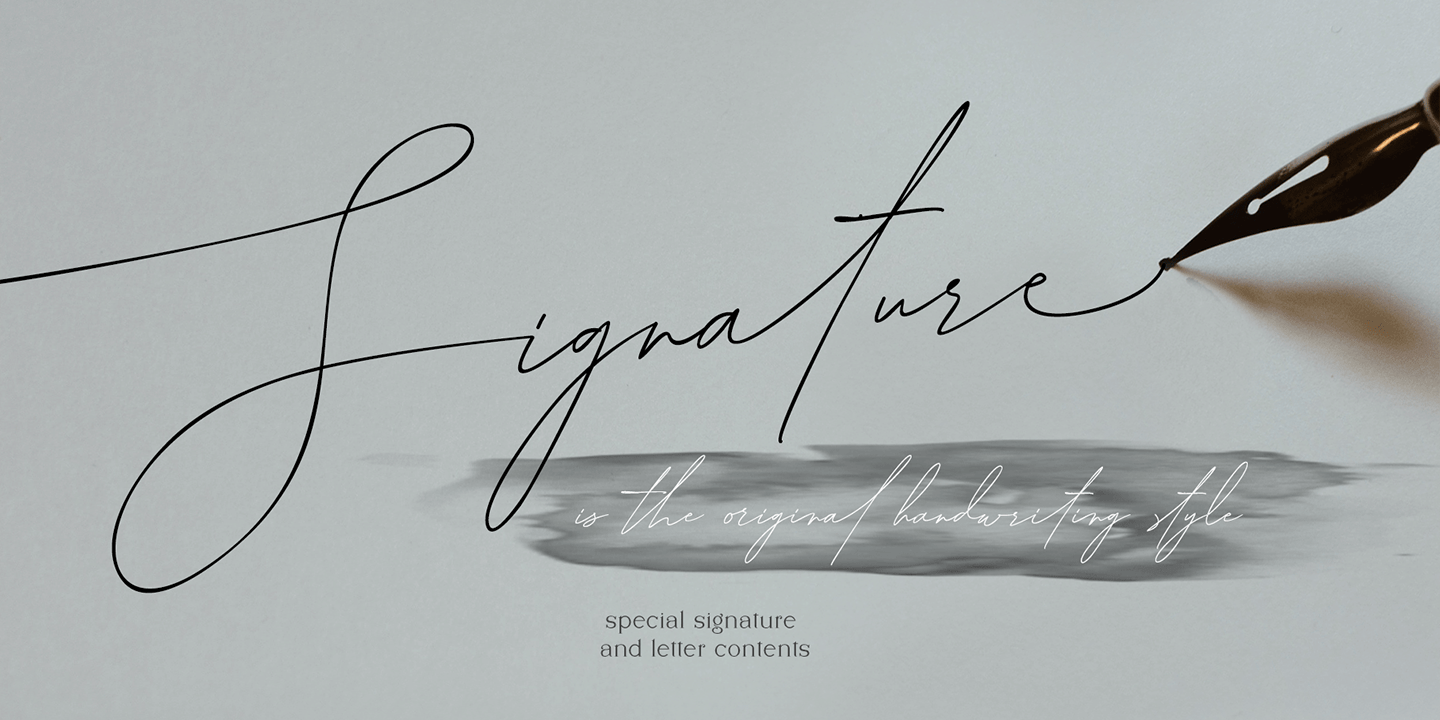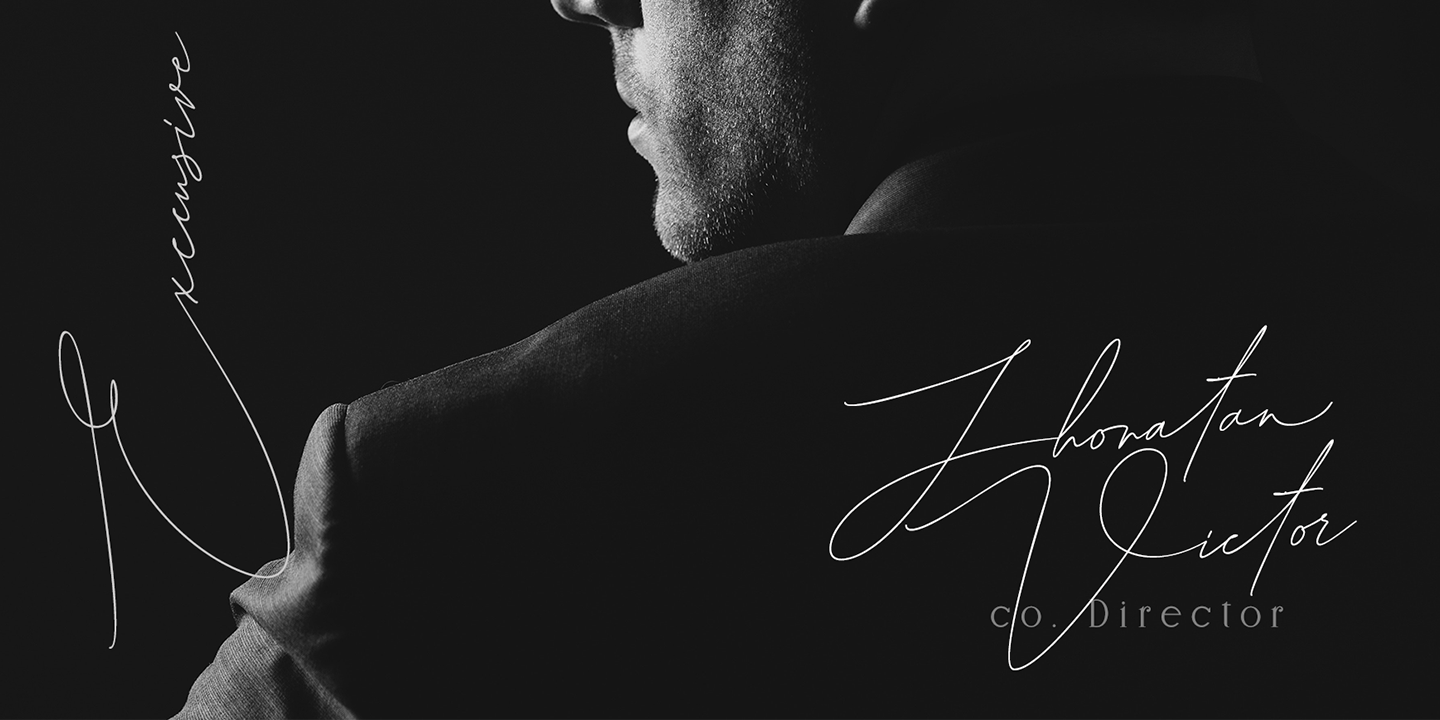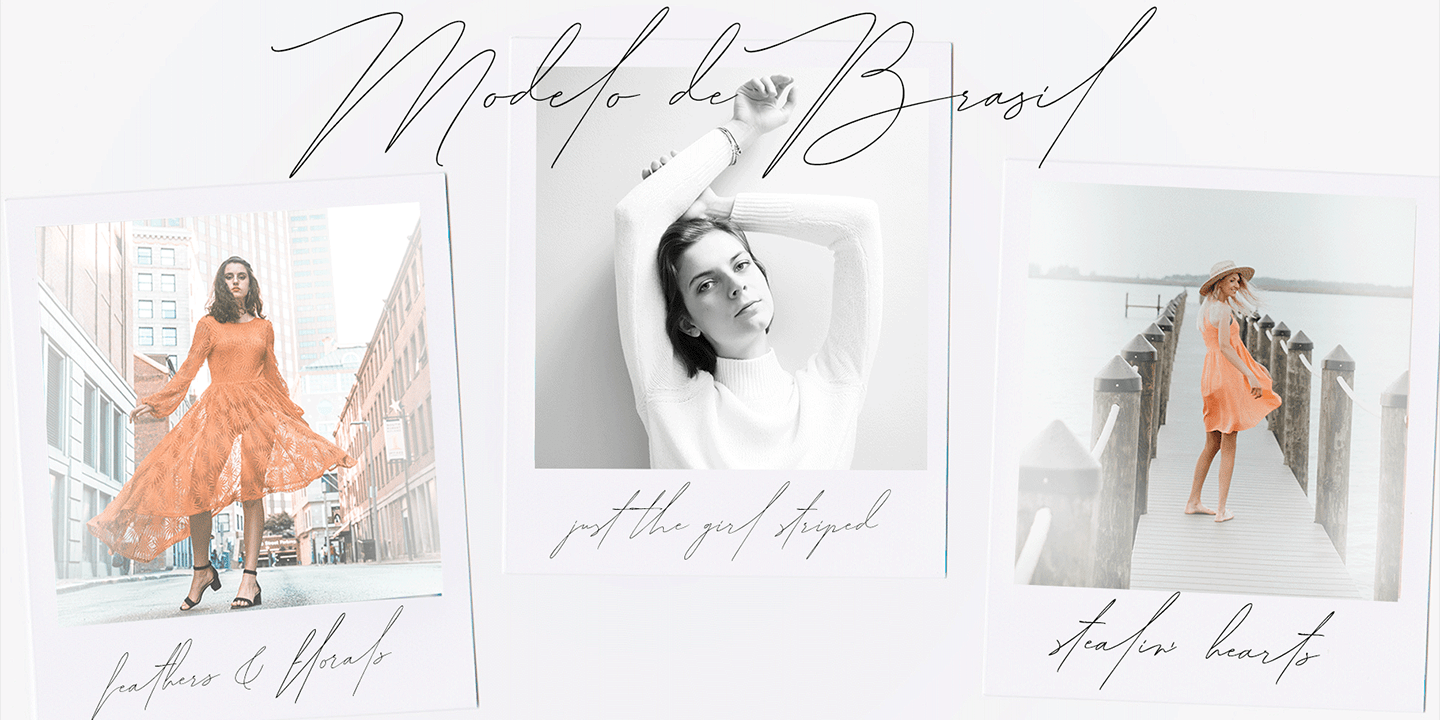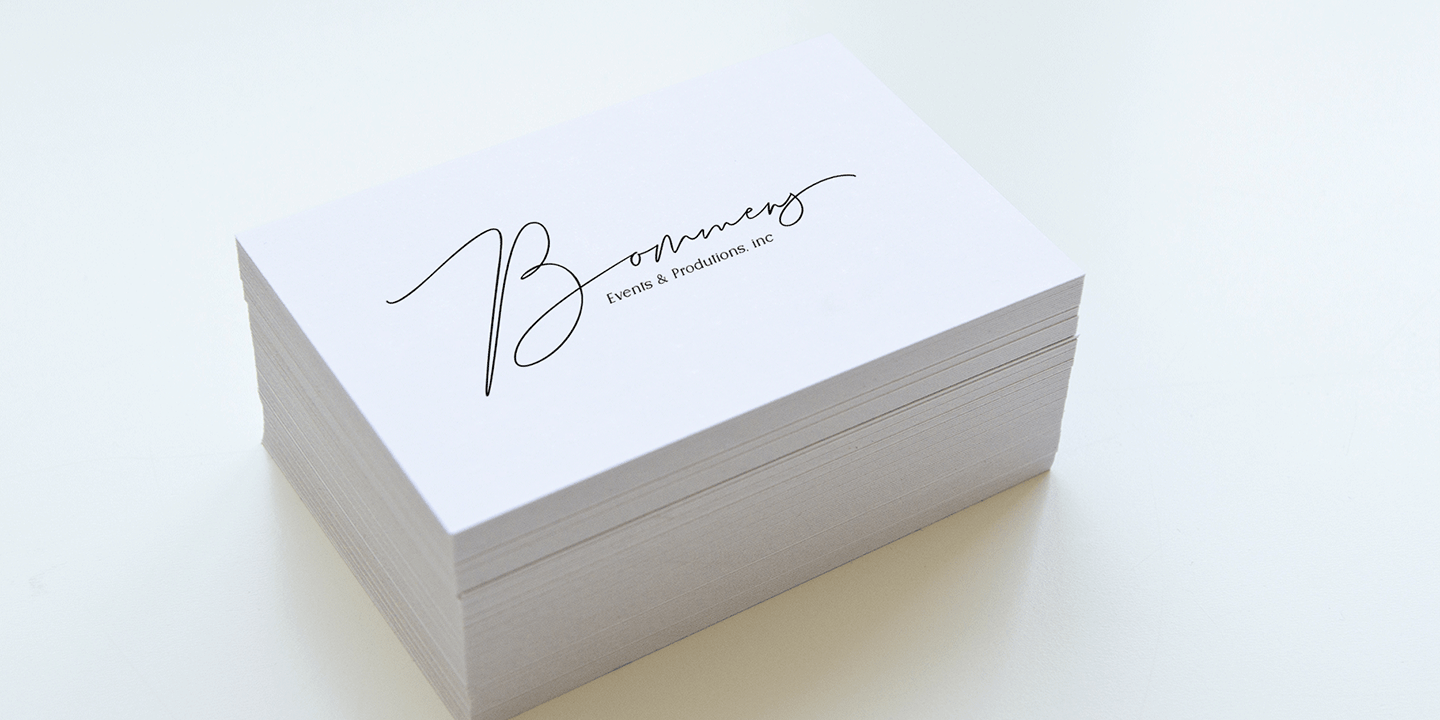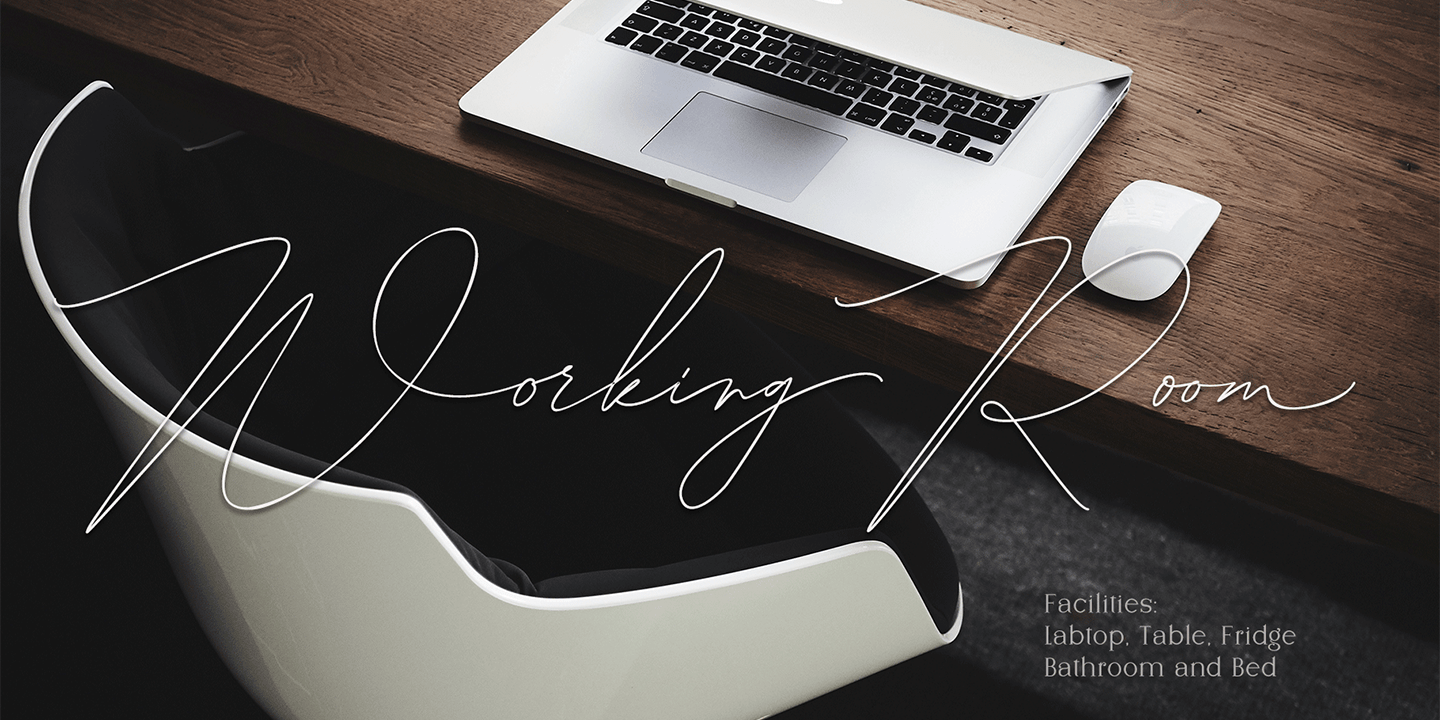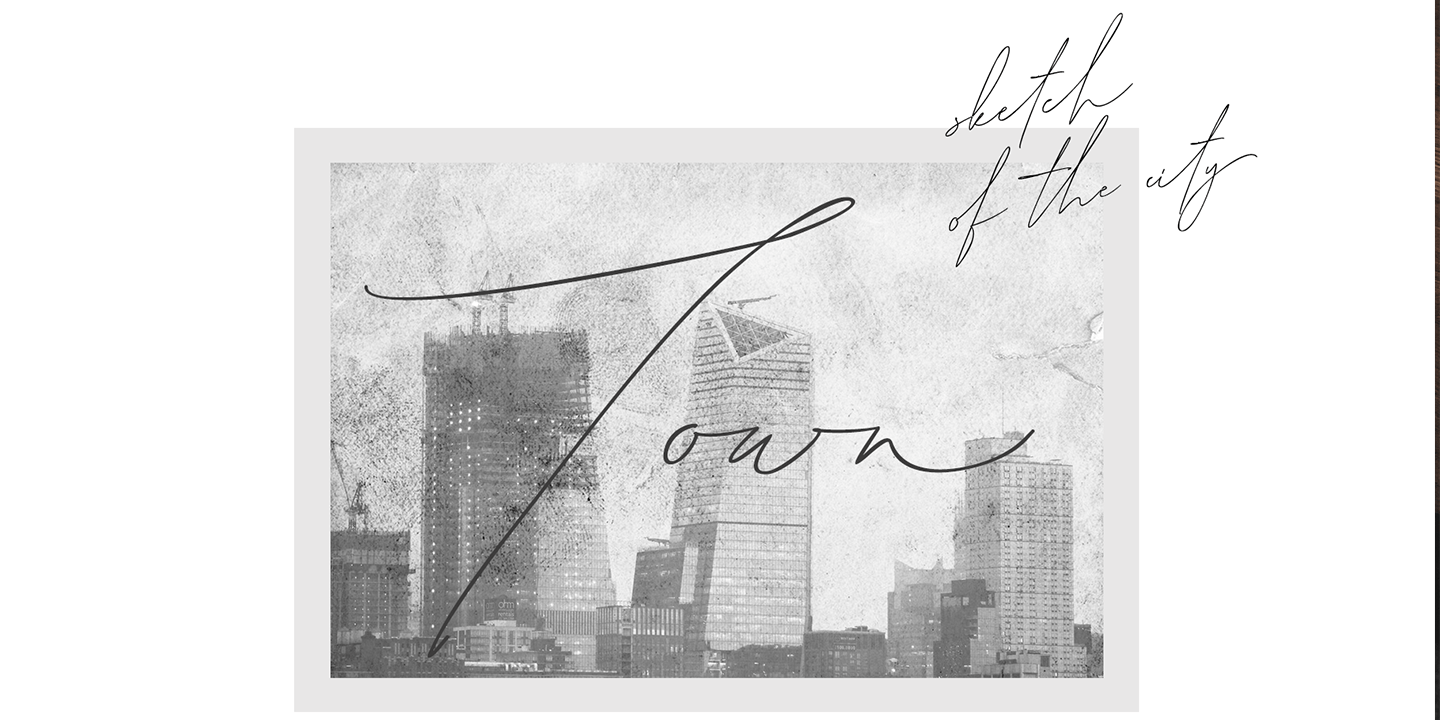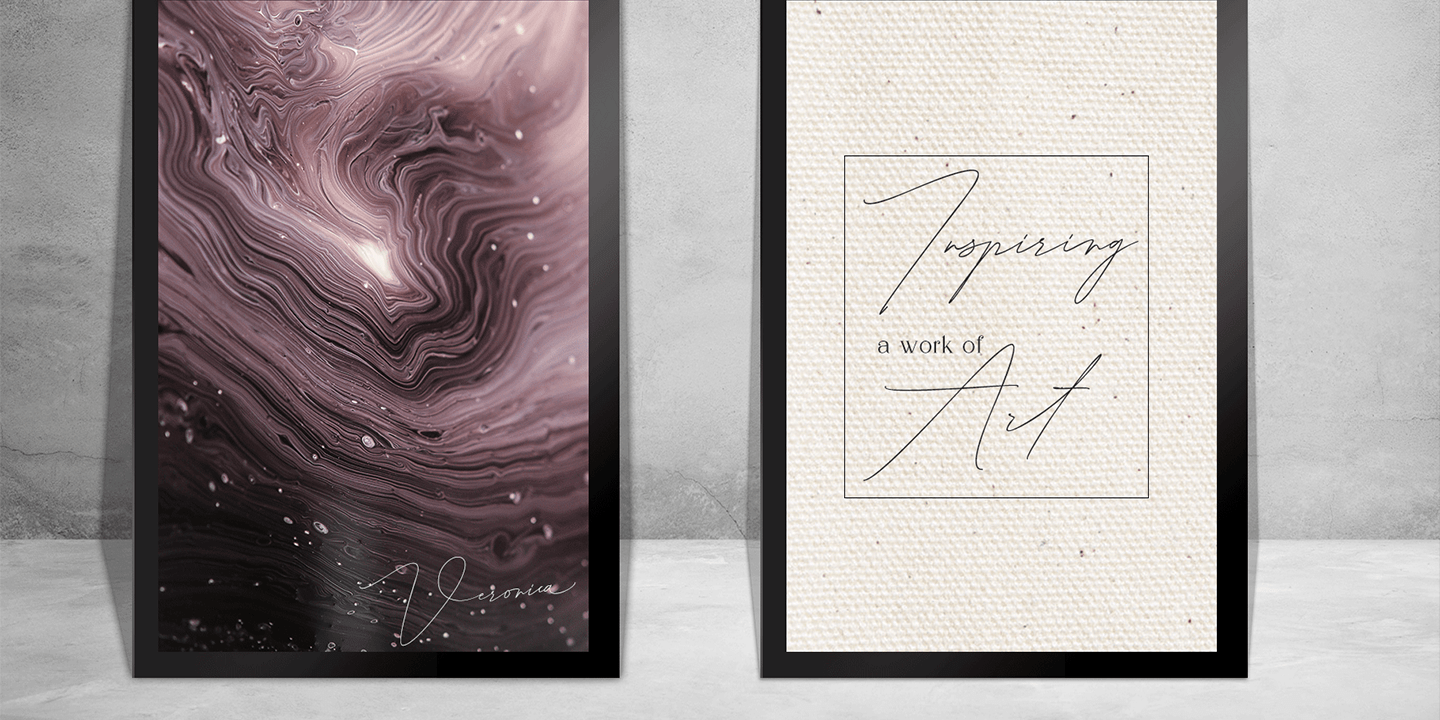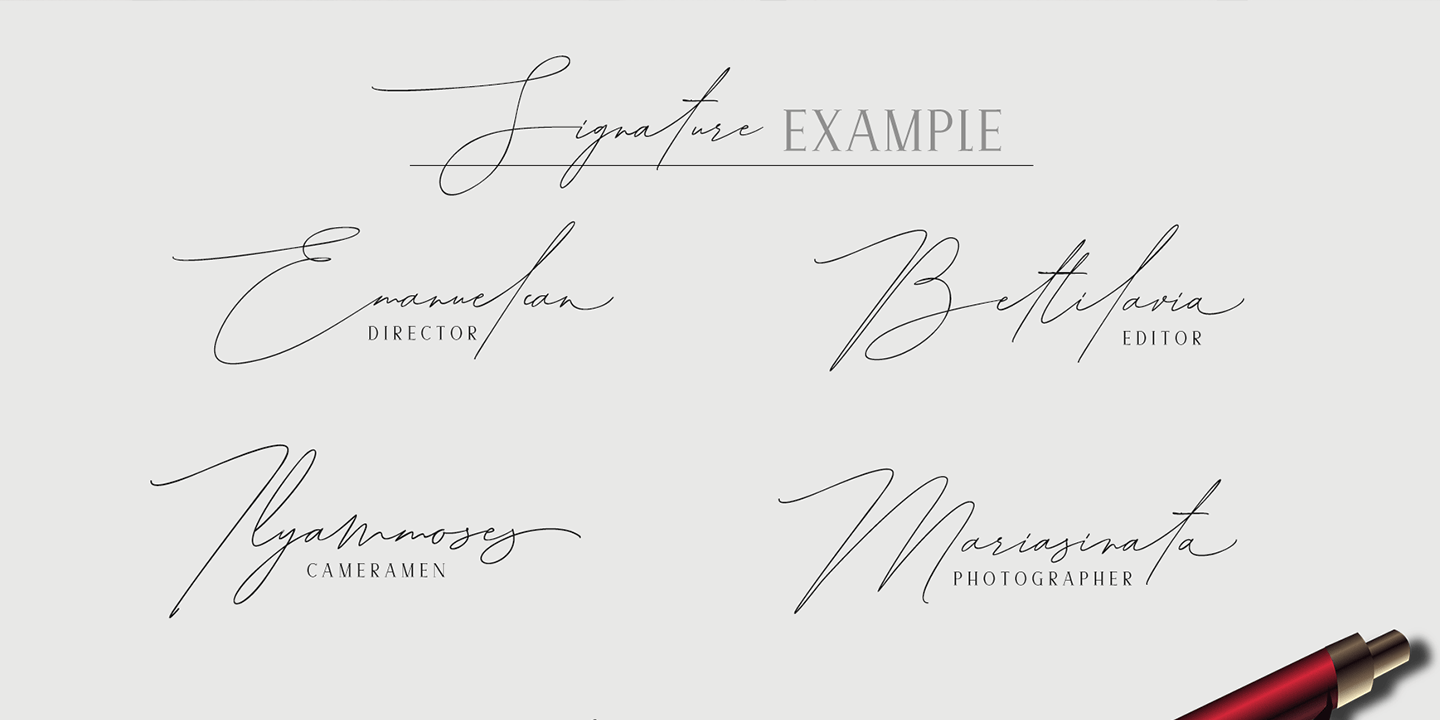
Welliams
Welliams a work that is purely a result of handwriting, has a natural characteristic. this is perfect for invitations, signatures, blogs, social media, business cards, product brands.
Welliams has Stylistic standard, Stylistic Alternate, Stylistic Sets and ligatures. and includes uppercase and lowercase letters, numbers and punctuation marks.
The Welliams font family includes 280 glyphs.